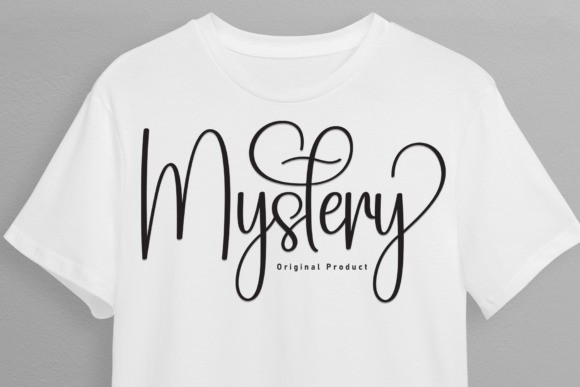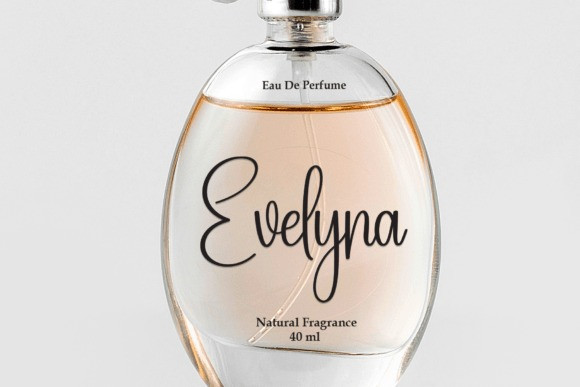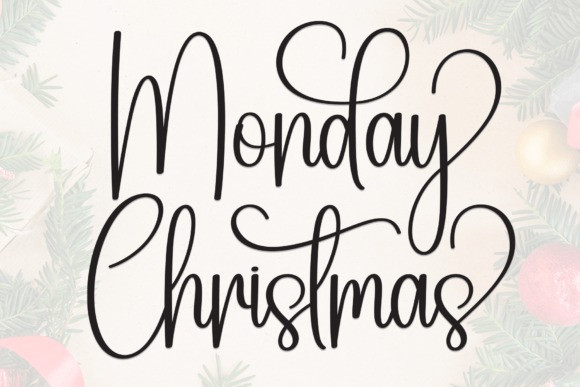
Monday Christmas Font
Monday Christmas Font is a stylish and incredibly elegant script font. It looks stunning on wedding invitations, thank you cards, quotes, greeting cards, logos, business cards and every other design which needs a handwritten touch.